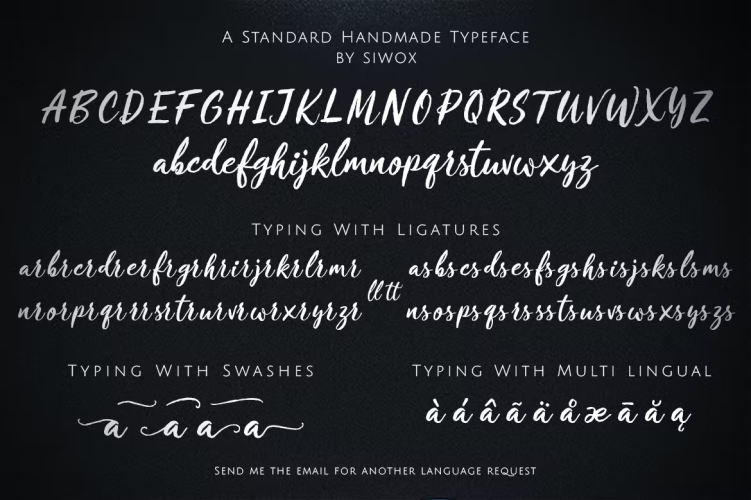
Crushine Wet Brush Font
Crushine Wet Brush Crushine is a casually and quickly written brush script. Letters are made with brush pen on a paper. Then scanned and carefully drawn into vector form…
Crushine Wet Brush
Crushine is a casually and quickly written brush script. Letters are made with brush pen on a paper. Then scanned and carefully drawn into vector format. There is just a handmade typeface so it looks good in small and big sizes. These elements gives Crushine its organic, authentic and laid-back characteristics.
Crushine is not textured brush font, contemporary approach to design, handmade natural with an less regular baseline. Suitable for use in title design. Such as apparel, invitations, books tittle, stationery design, quotes, branding, logos, greeting card, t-shirt, packaging design, poster and more. Crushine includes a complete set of uppercase and lowercase letters, as well as multi-language support, numbers, punctuation, ligatures.